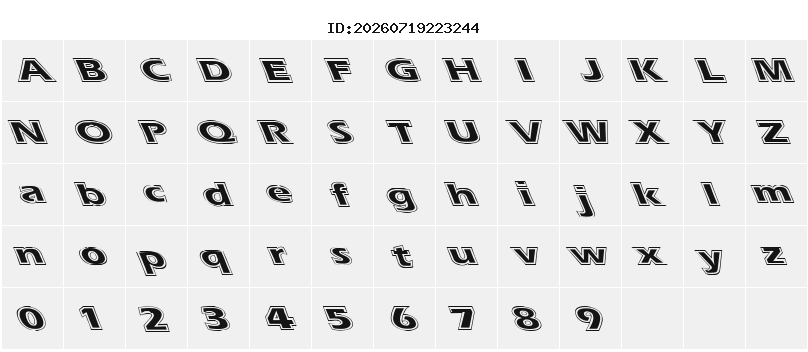
Eras Contour Lefty Wide Preview
• Font Name: Eras Contour Lefty Wide
• Full Font Name: Eras Contour Lefty Wide
About Eras Contour Lefty Wide.ttf
Eras Contour Lefty Wide.ttf is a modern, elegant sans-serif font designed for ultimate readability and visual harmony. Perfect for branding, headlines, web design, and print materials.